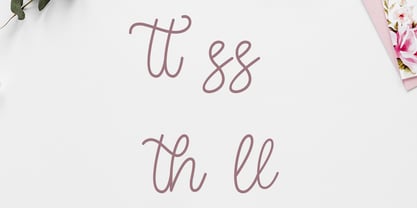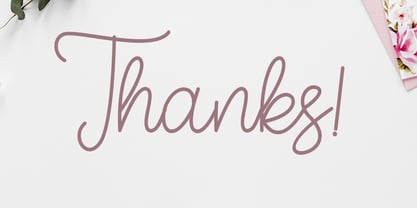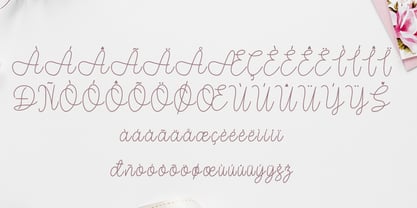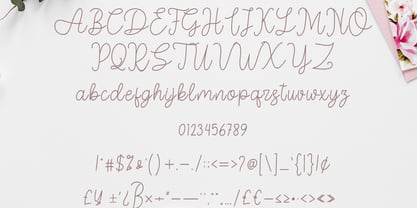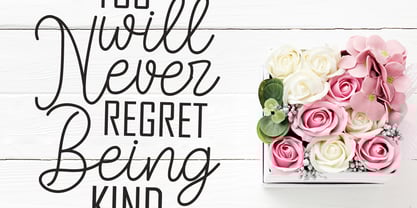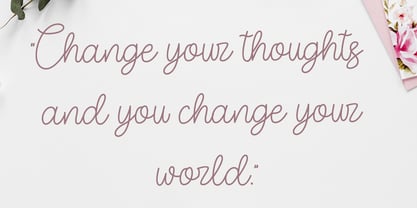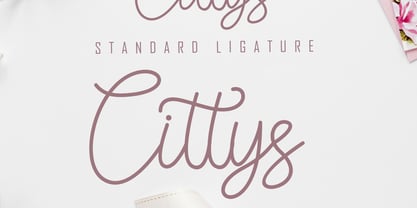
Aslly Lastty
by Skiiller Studio
The Aslly Lastty Font Family was designed by Irfan Mahmudin and published by Skiiller Studio. Aslly Lastty contains 1 styles.
Aslly Lastty is an elegant and romantic handwritten script font featuring graceful curves, smooth strokes, and beautifully flowing letterforms. Designed to bring a refined and feminine touch to your creative projects, this script typeface is perfect for wedding invitations, branding, logos, greeting cards, stationery, quotes, packaging, and decorative designs. With its delicate swashes and naturally connected letters, Aslly Lastty delivers a timeless handwritten charm that enhances any layout with sophistication and warmth.
Designers: Irfan Mahmudin
Publisher: Skiiller Studio
Foundry: Skiiller Studio